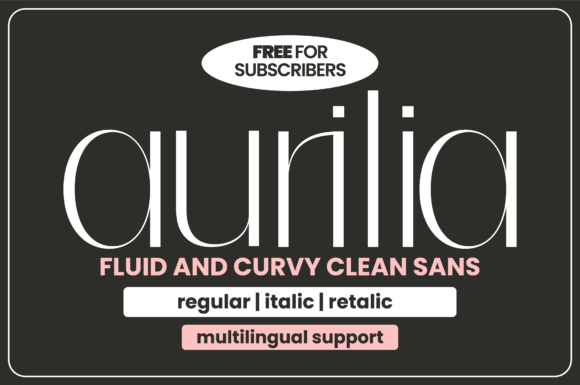
I still remember the countless hours I spent scrolling through font libraries, searching for the perfect typeface for a client’s branding project. The client wanted something modern, elegant, and highly legible. I tried font after font, but nothing seemed to hit the mark. That was until I stumbled upon Aurilia, a sans-serif font family that has since become a staple in my design toolkit.
Aurilia: The Standout Font Family
Aurilia is a stunning assortment of sans-serif fonts, available in three distinguished styles: Regular, Italic, and Retalic (or Reversed Italic). Each style exemplifies its artistry, boasting immaculate, sturdy strokes that radiate a perfect synergy of aesthetic allure and functionality.
What I Love About Aurilia
- ✨ Expansive design: Aurilia’s generous letter-spacing and open design make it perfect for prominent titles, logos, and invitations.
- ✅ Elegant and approachable: Aurilia strikes the perfect balance between sophistication and friendliness, making it suitable for a wide range of design projects.
- 💡 OpenType features: Aurilia supports OpenType features, allowing for advanced typography and customization.
While Aurilia is an exceptional font, there are a few minor quirks to be aware of:
- 🤔 Limited language support: Aurilia may not support all languages, so be sure to check the font’s capabilities before using it for multilingual projects.
- ⚠️ Not suitable for body text: Due to its elegant and expansive design, Aurilia may not be the best choice for lengthy body text.
The Designer Inspiration Behind Aurilia
Aurilia was designed with the goal of creating a font that embodies both elegance and approachability. The designer’s inspiration came from a desire to craft a typeface that would be perfect for titles, logos, and invitations. With its expansive design and sturdy strokes, Aurilia is the perfect choice for designers looking to add a touch of sophistication to their projects.
| What is the difference between Aurilia Regular, Italic, and Retalic? | Aurilia Regular is the standard font style, while Aurilia Italic is a slanted version of the font. Aurilia Retalic, or Reversed Italic, is a unique style that combines the elegance of italic fonts with the sophistication of regular fonts. |
| Is Aurilia suitable for body text? | While Aurilia is an elegant and legible font, it may not be the best choice for lengthy body text due to its expansive design. |